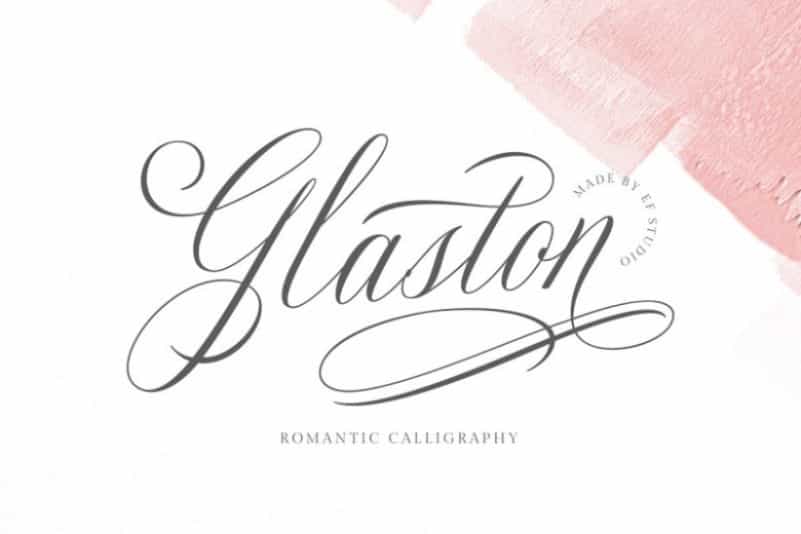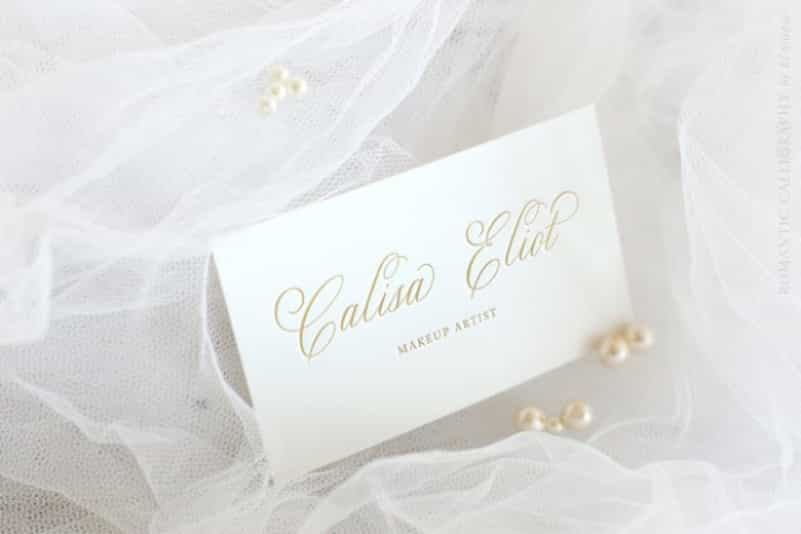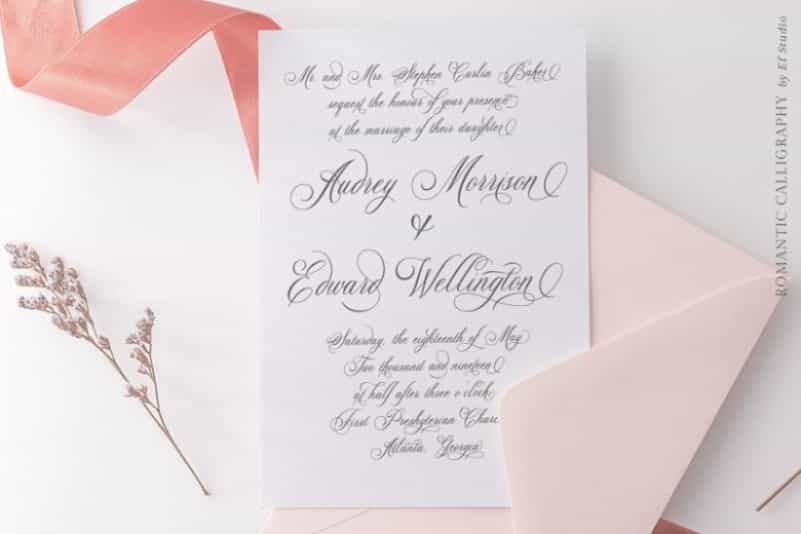
Discover Glaston Calligraphy Font, part of the Calligraphy collection—a versatile and unique font perfect for adding a personal touch to your projects. Download it for free and enjoy crafting designs with style, from invitations to social media posts. This font is available exclusively for personal use, giving you the freedom to create without limits. Unlock your creativity with Glaston Calligraphy Font today!
Introducing Glaston Font. It is a design of the studio and is shared by Ef Studio. Glaston is the best choice for red wine label, vodka label, upscale packaging, wedding stationery, invitations, business cards, branding and other projects that need a handwriting and a little bit of luxury touch.